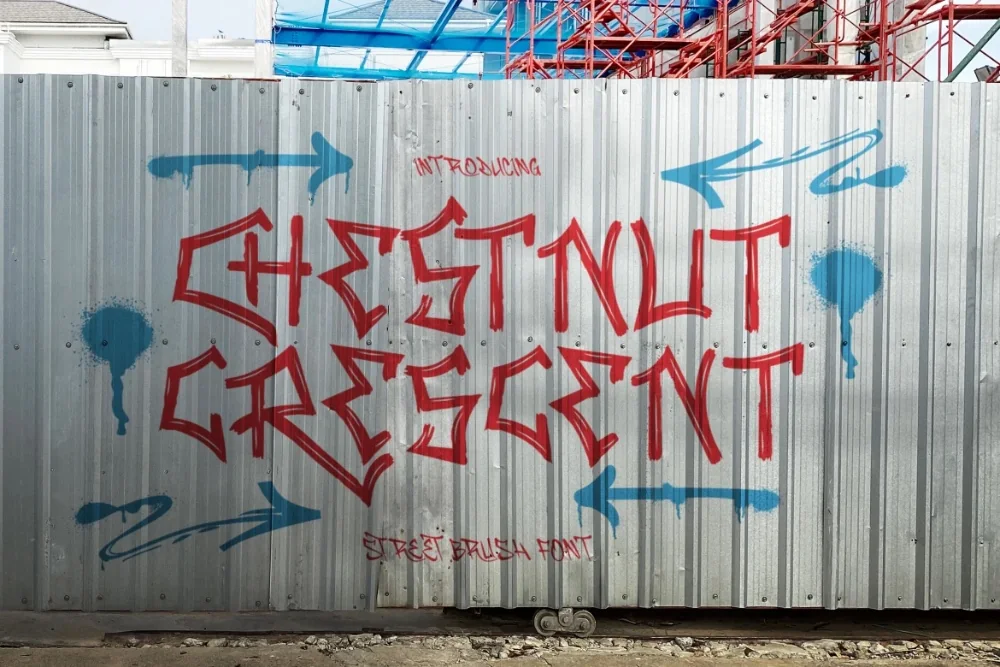
Crescent Curve Display Font
This curved display font was picked for the collection because it solves a problem the obvious choices do not. Sweeping curved strokes that arc through every letter. Elegant, unusually so for this genre.
Long crescent curves replace straight stems, and each character carries a thin-to-thick transition that suggests a brush held at a constant angle. Words form a flowing horizontal shape.
Suits fashion graphics, beauty branding, poetry prints, and covers that need softness with edge.
Worth knowing: tighten the letter spacing well past what feels comfortable. Painted lettering is set tight, and default digital spacing makes this genre look oddly polite.